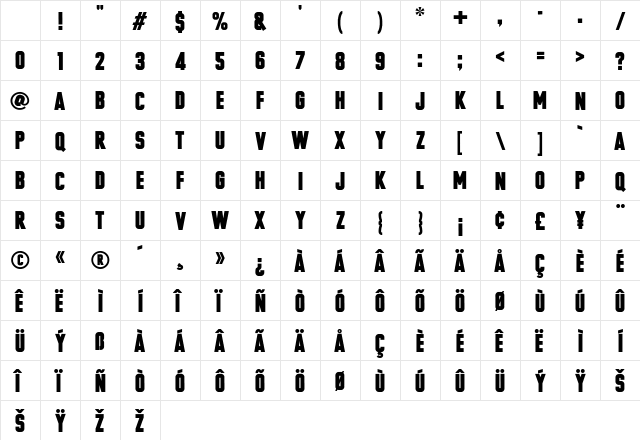
Complete Headlined Solid Regular glyph index. Displaying only characters natively supported by Headlined Solid Regular font.
Headlined Solid is a composed and adaptable typeface that performs quietly and consistently across a wide range of design contexts.